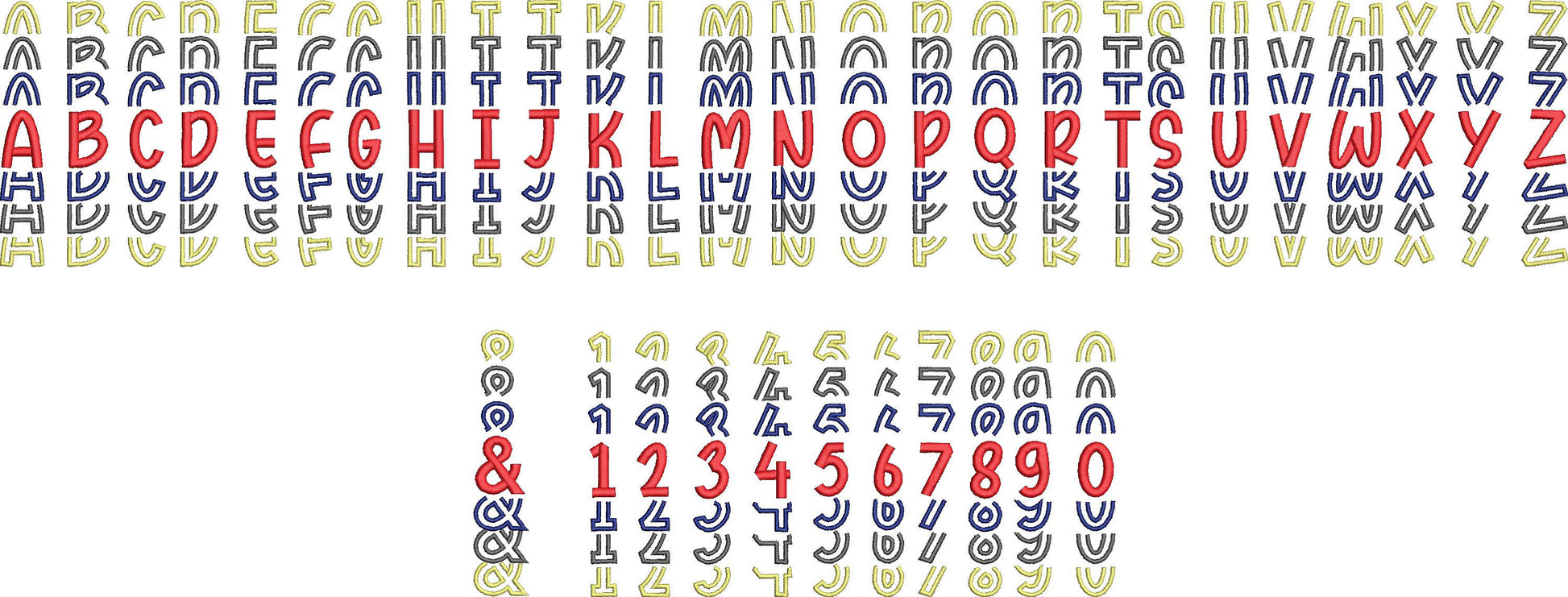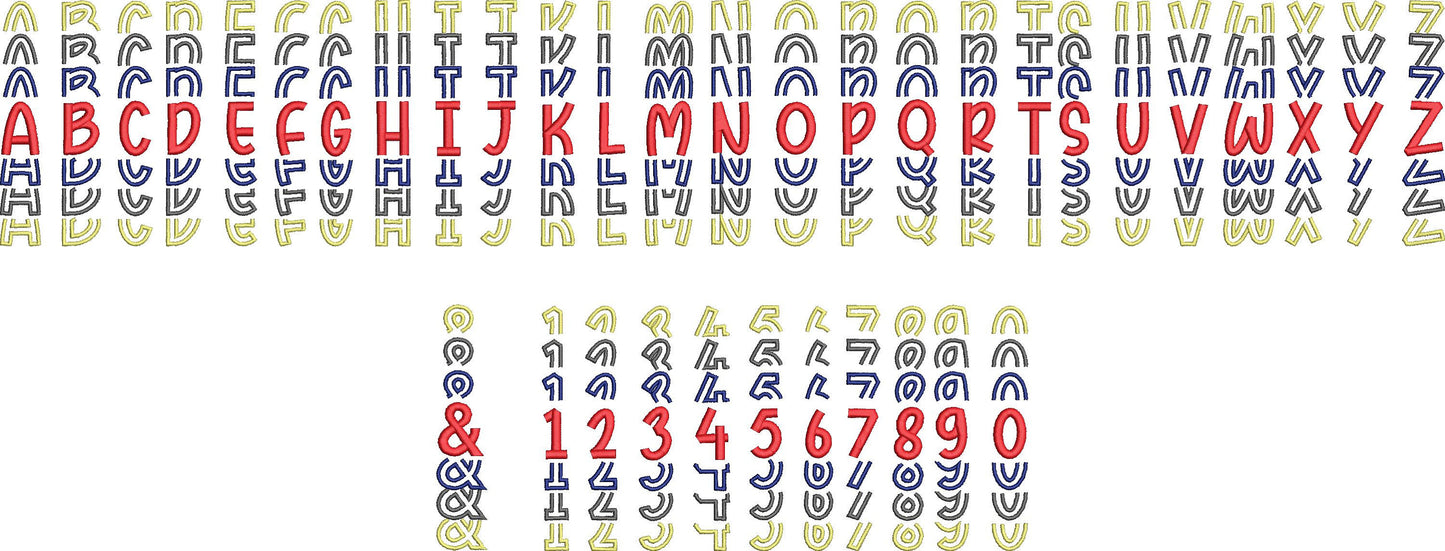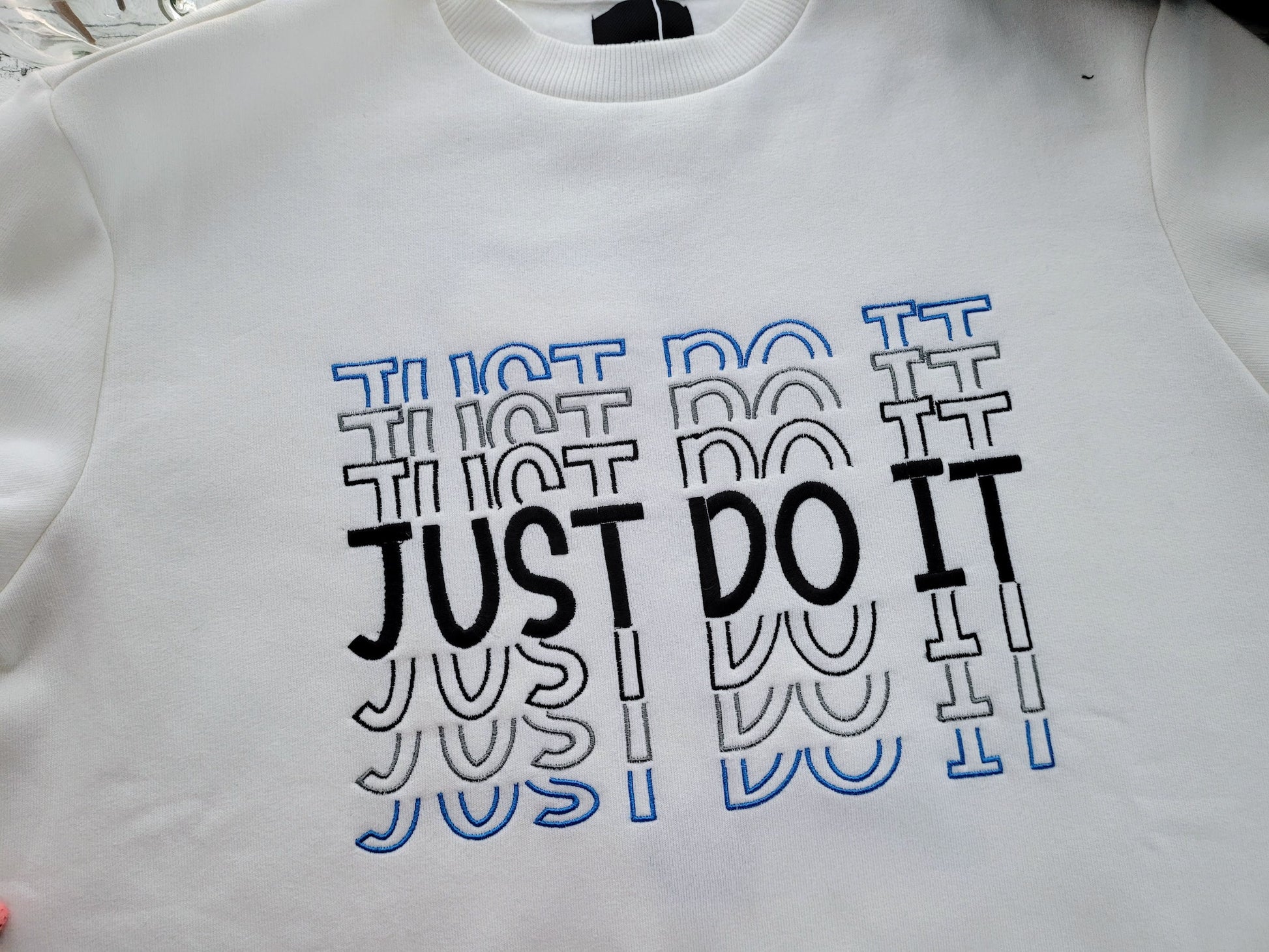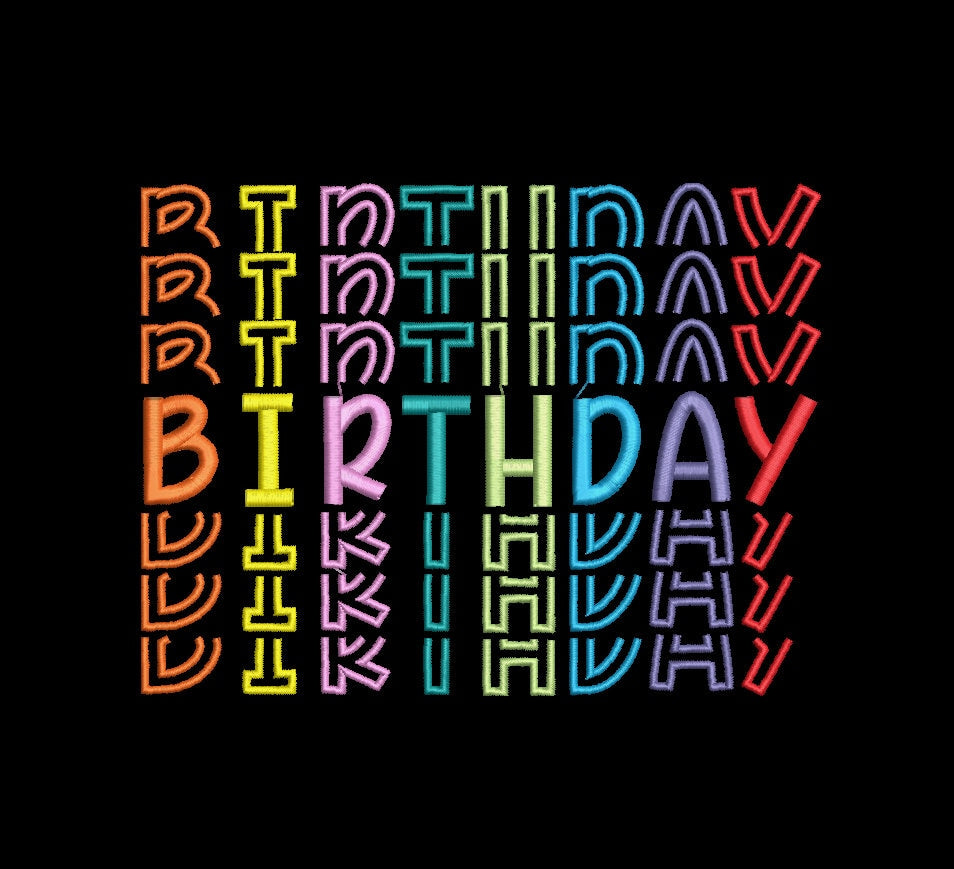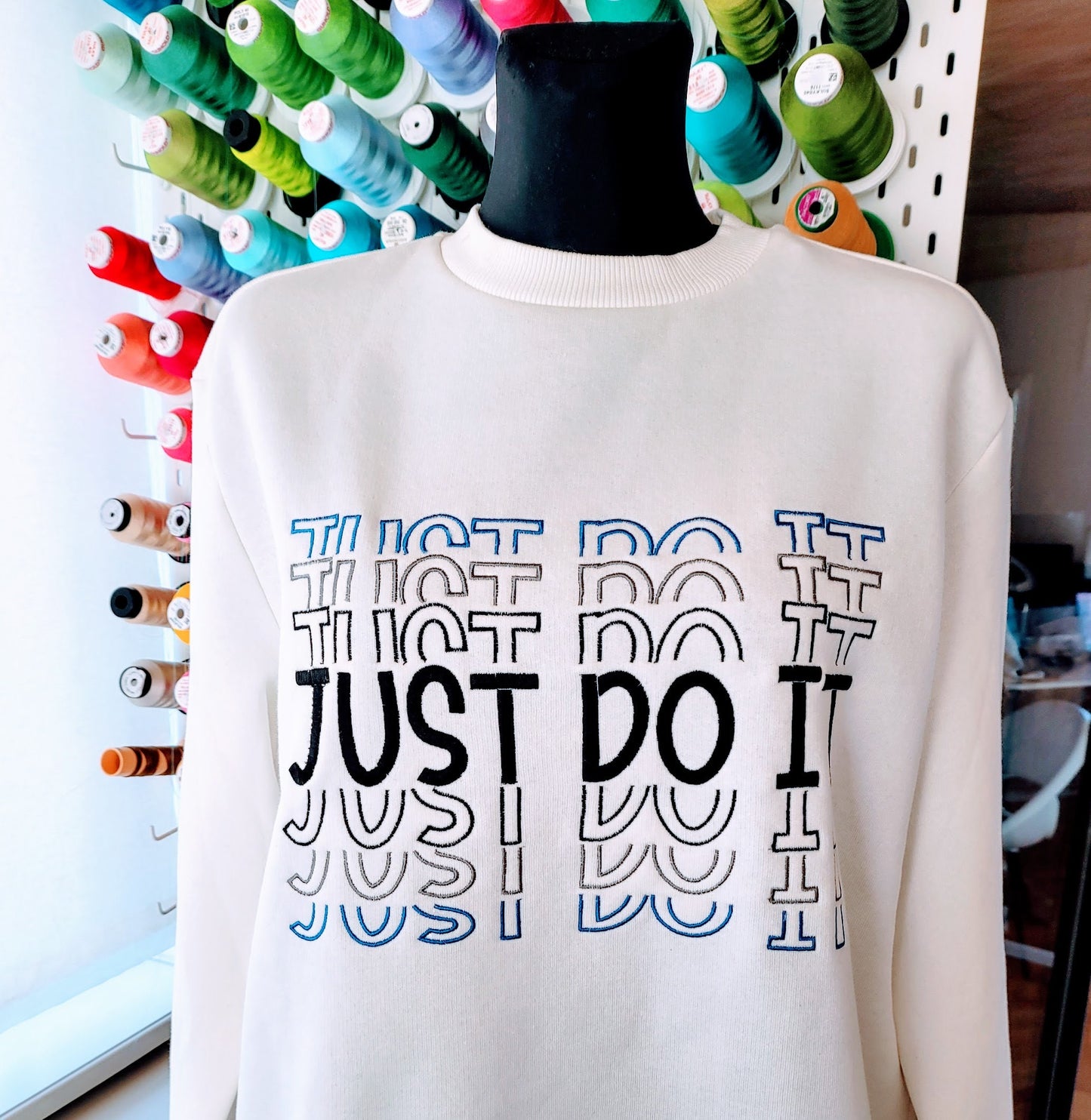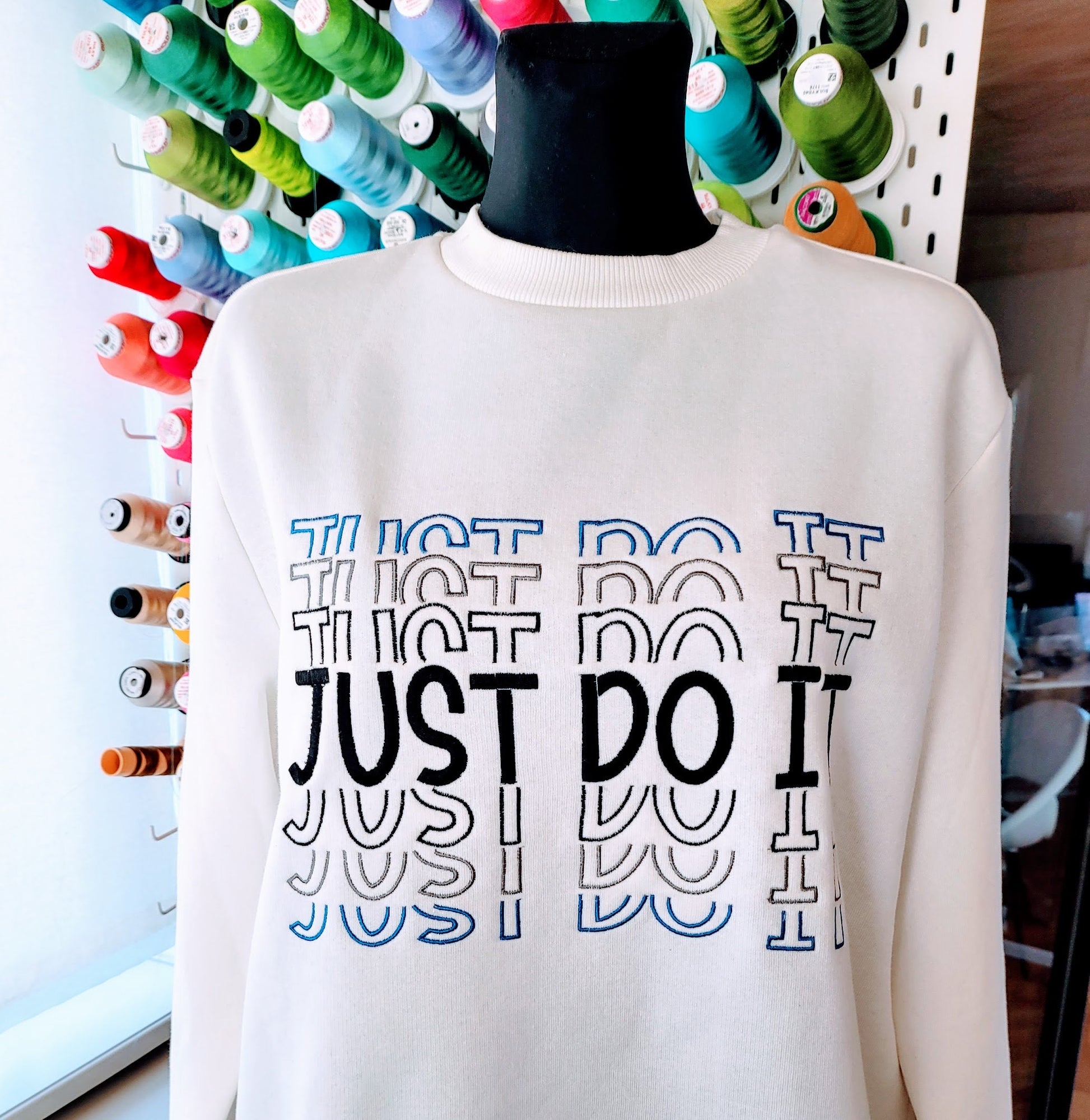
Or click to open the linkA tall stacked font in satin stitch and outline. Great for boys' shirts, hoodies, sleeves and bold monograms.
Uppercase letters A to Z, numbers 0 to 9 and an ampersand. Nine sizes: 2, 3, 4, 4.5, 5, 5.5, 6, 7 and 8 inches. The 2 and 3 inch sizes have a bean stitch shadow.